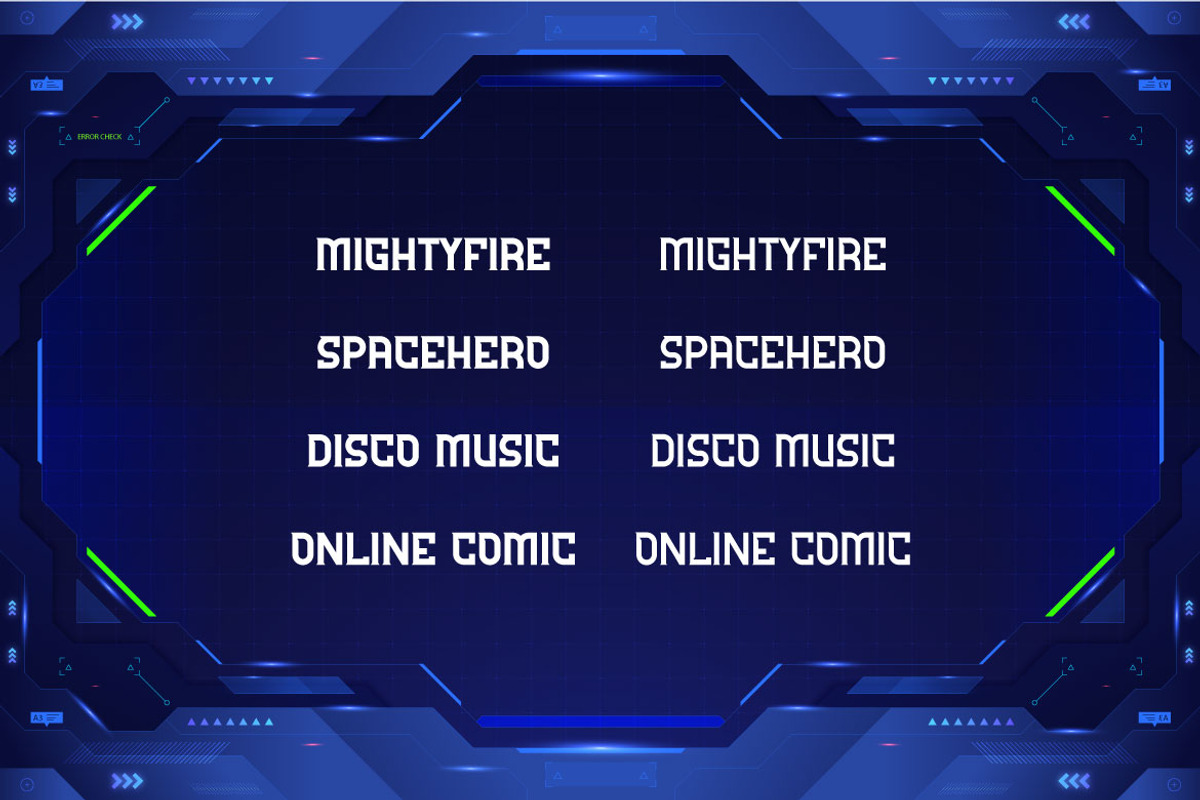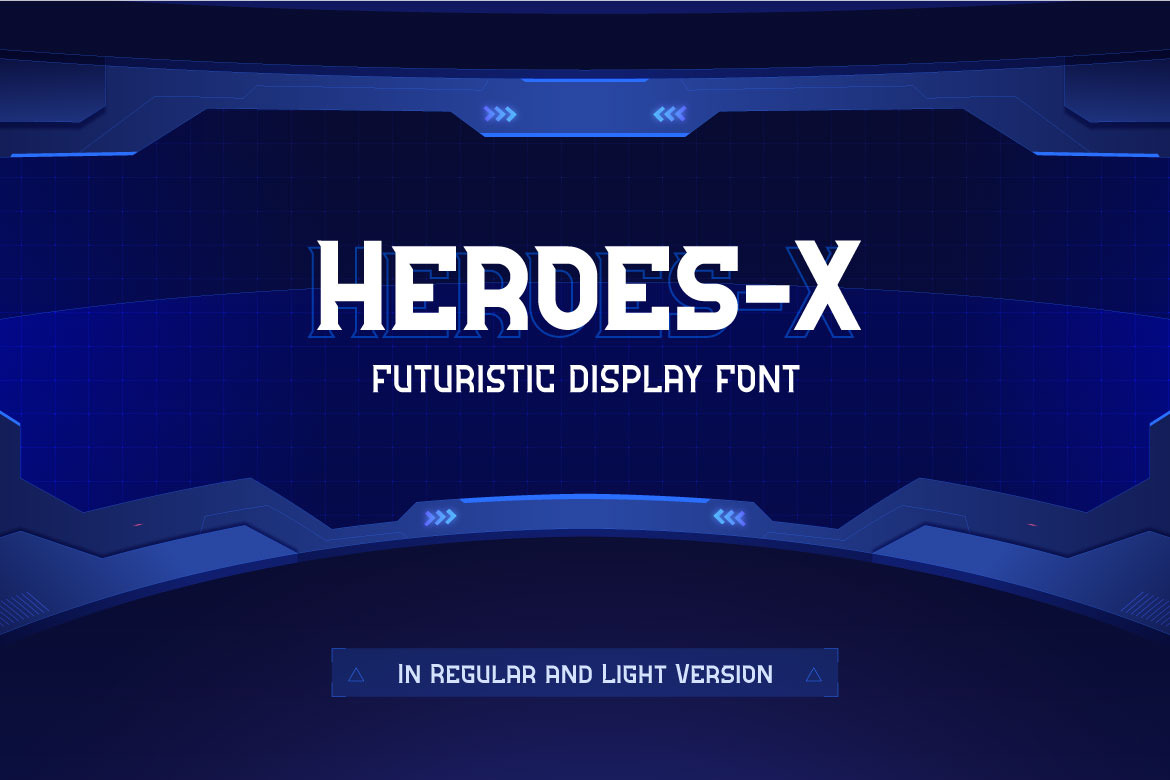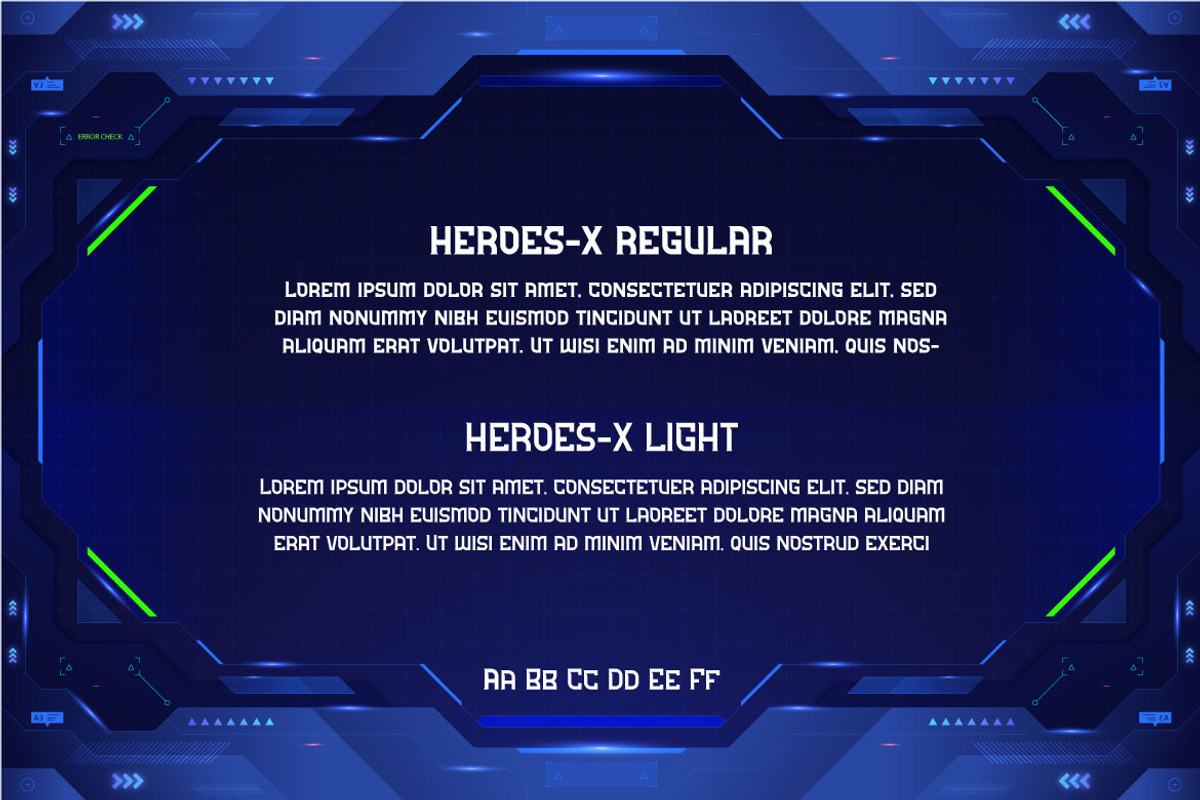
Heroes-X Futuristic Display Font
Introducing you HEROES-X, a futuristic and modern display font. If you are looking for a futuristic font, you come to the right place! This font brings modern ambience for your words. It's suitable for Poster, Cover book, Background, media promotion, etc. Heroes-X also has regular and light versions.